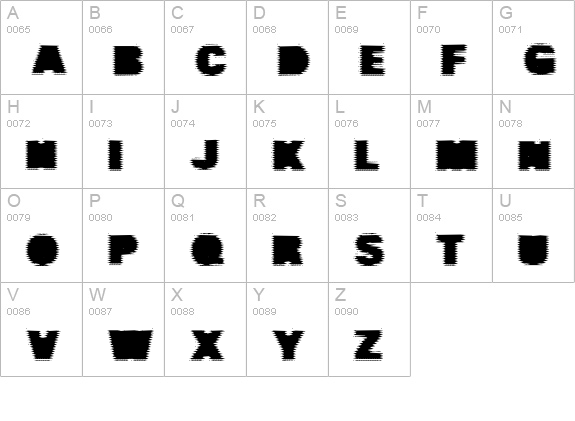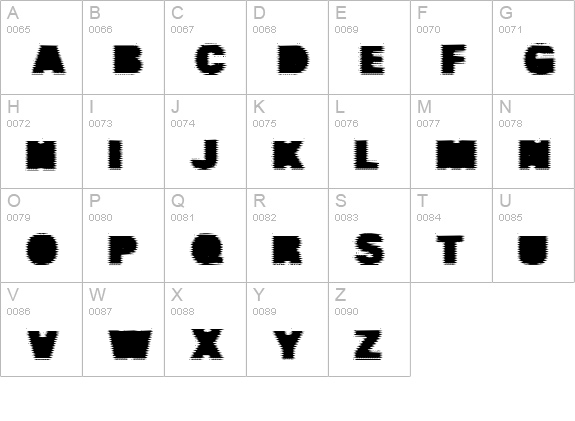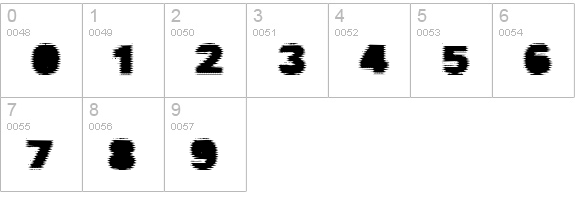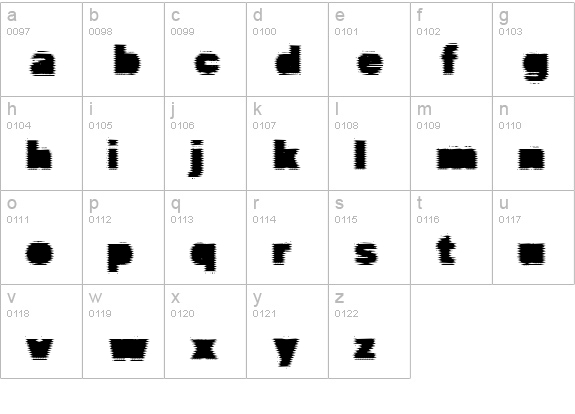
Cathode-Normal Font Details
Cathode-Normal is the standard, neutral variant in the Cathode typeface family \xE2\x80\x94 well suited to general body text, paragraphs, and standard typographic work.
Cathode-Normal font is a modern and dynamic typeface that exudes a sleek and futuristic aesthetic. With its sharp lines and geometric design, this font is perfect for creating bold and eye-catching designs. The versatility of Cathode-Normal font makes it suitable for a wide range of projects, from branding to editorial design. What's even better is that Cathode-Normal font is available for free download at FontsMarket.com. So whether you're a designer looking to add a unique touch to your projects or a creative enthusiast exploring new fonts, Cathode-Normal is the perfect choice. Download it now and elevate your designs with this striking and contemporary typeface.